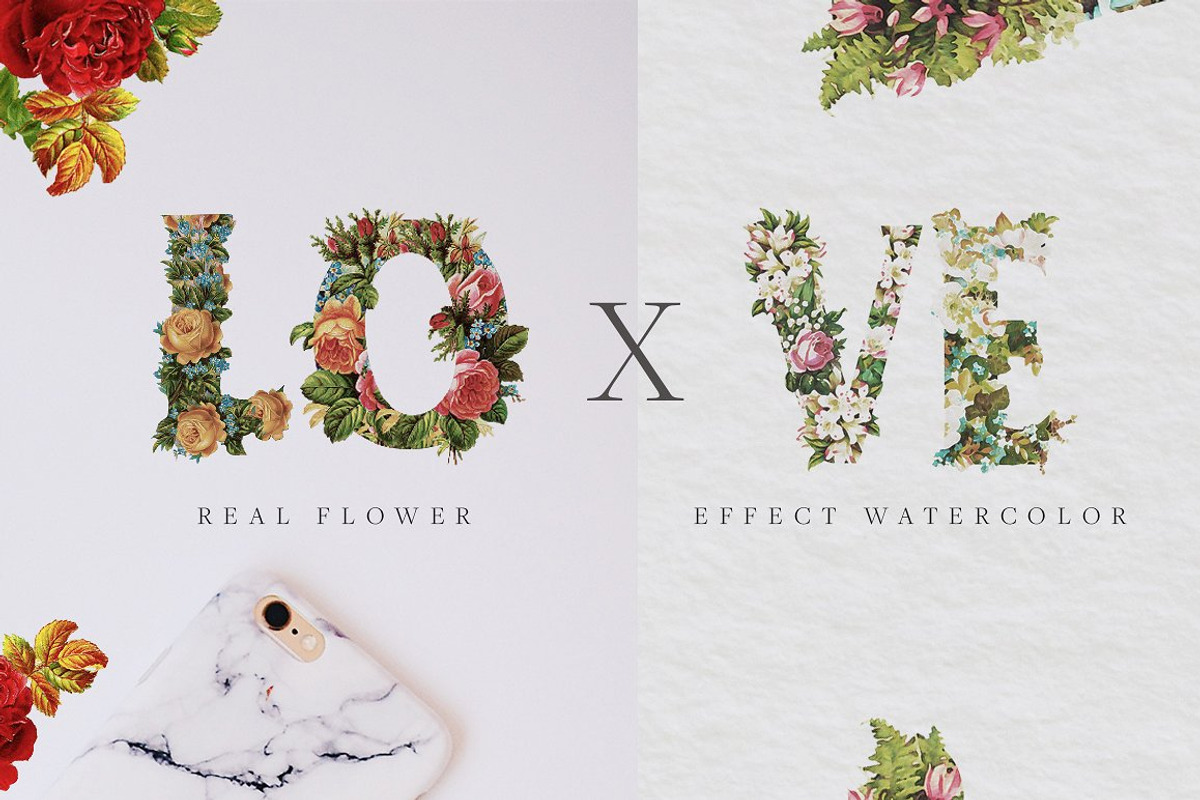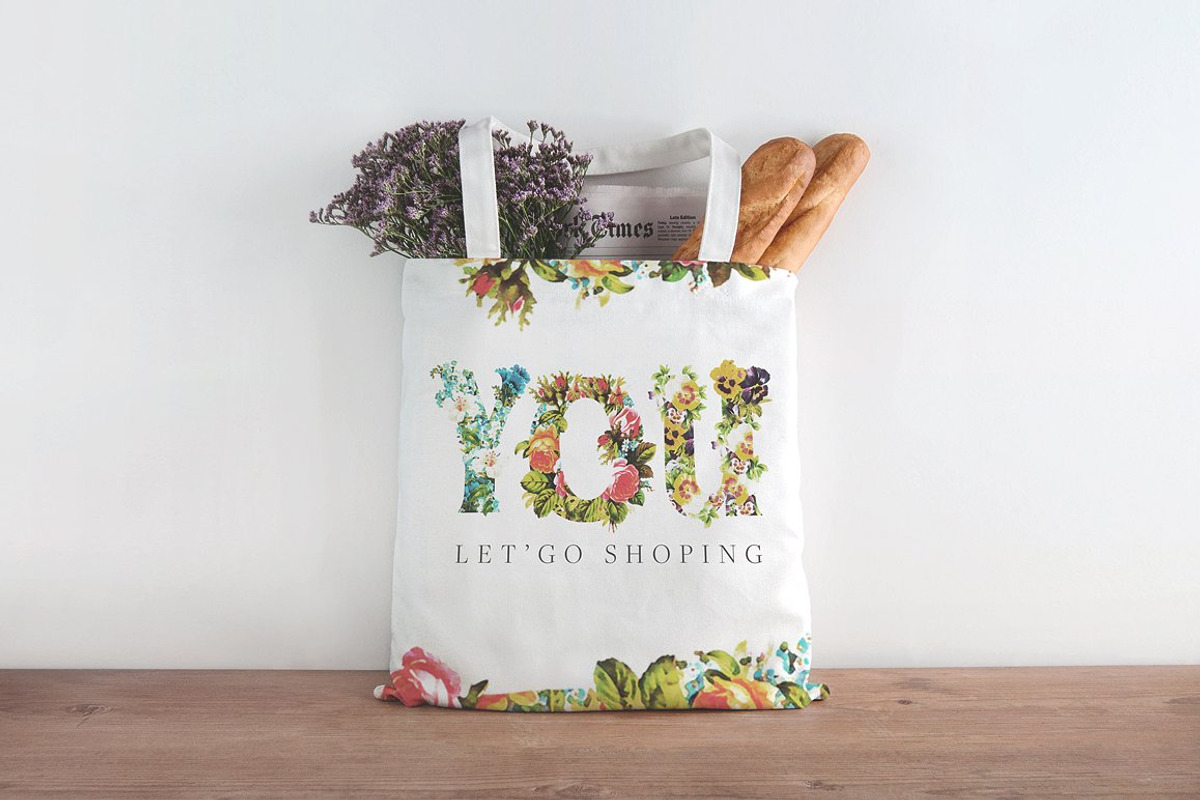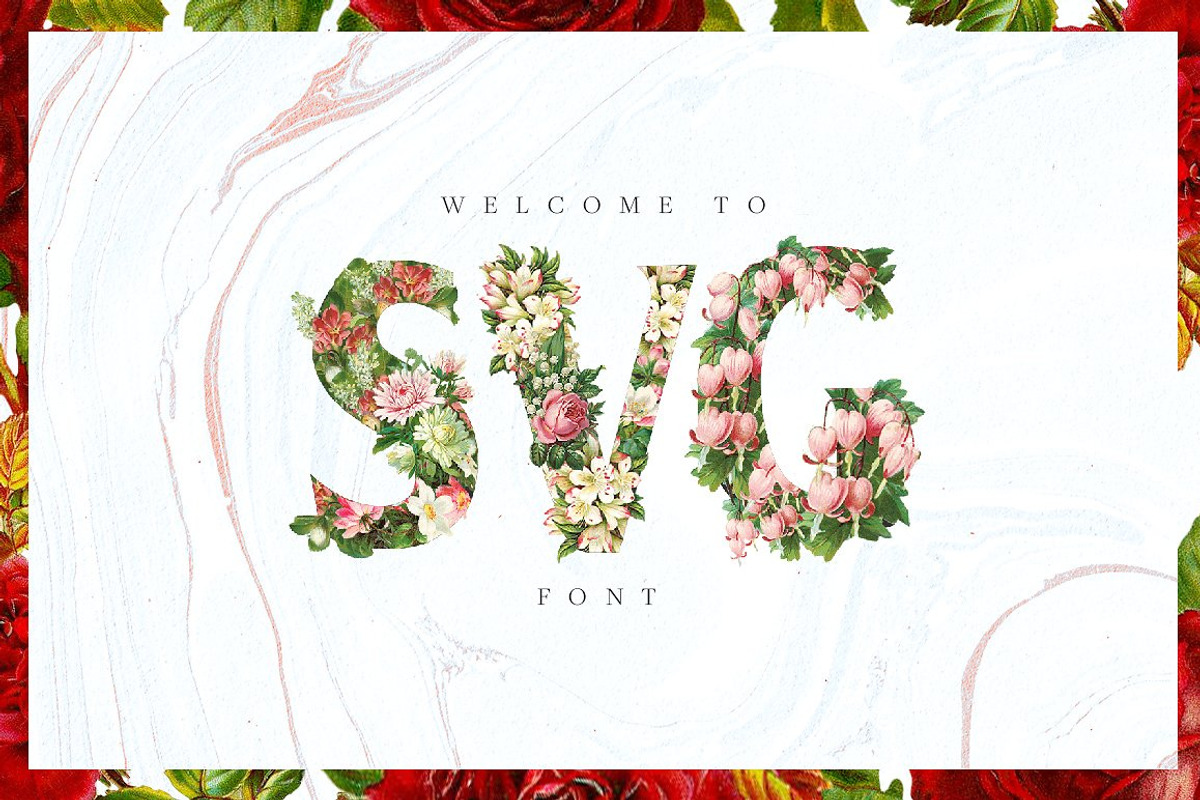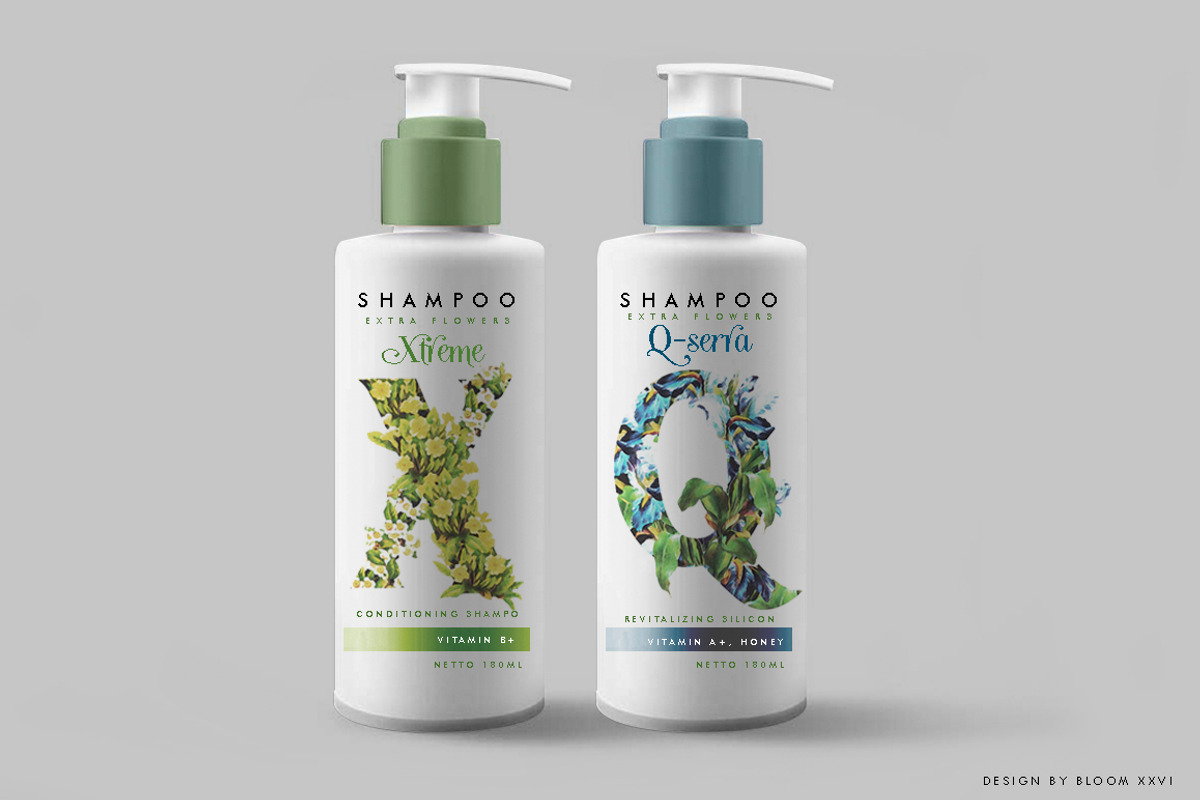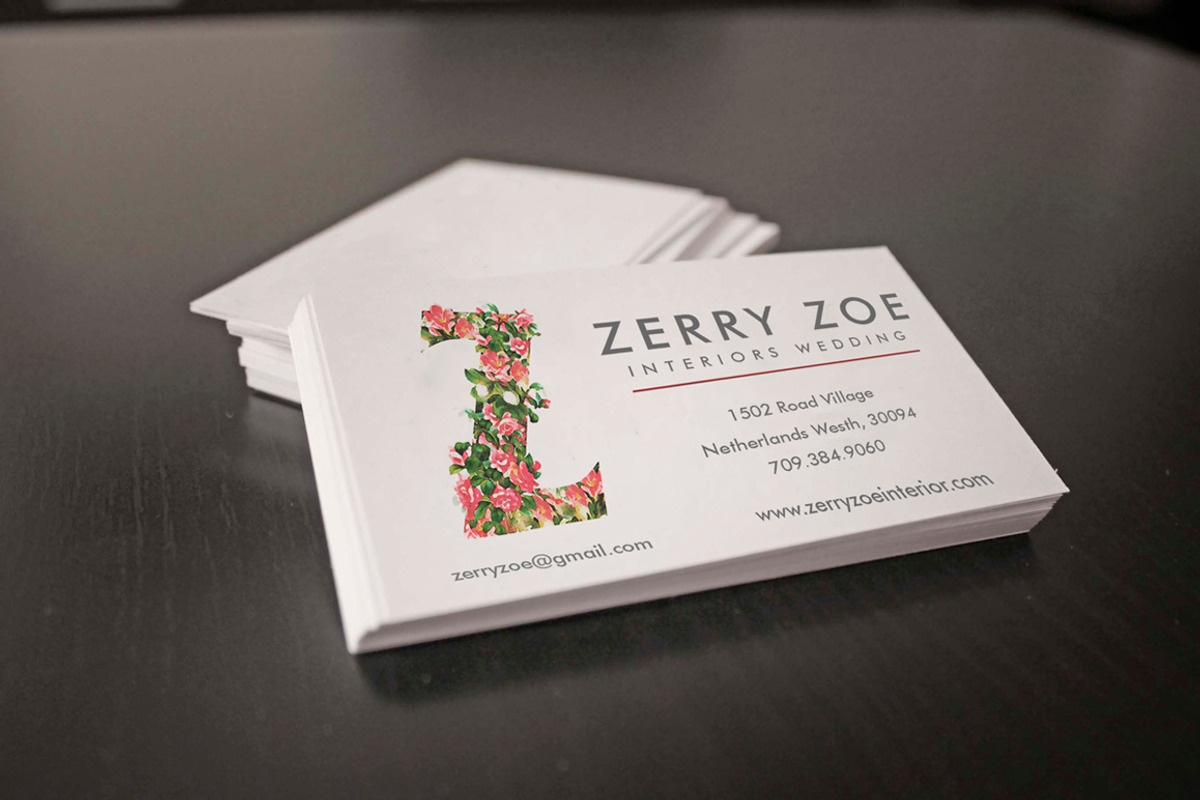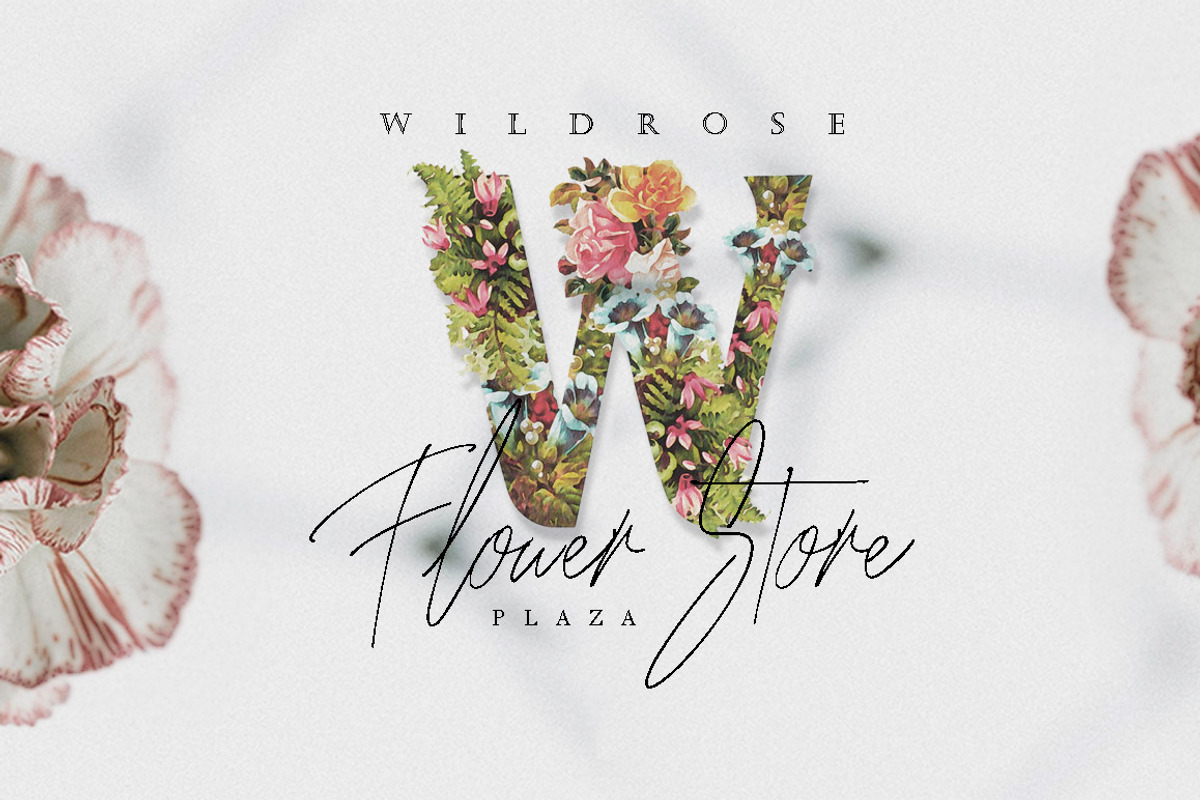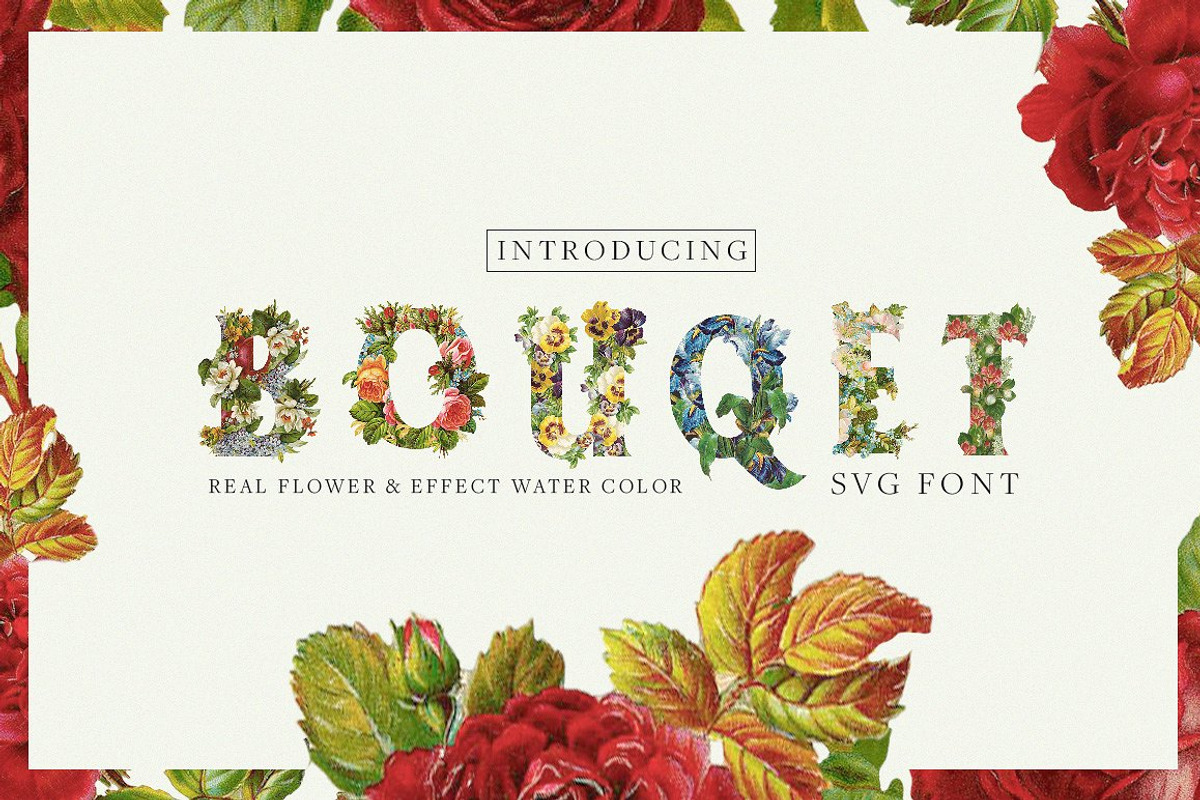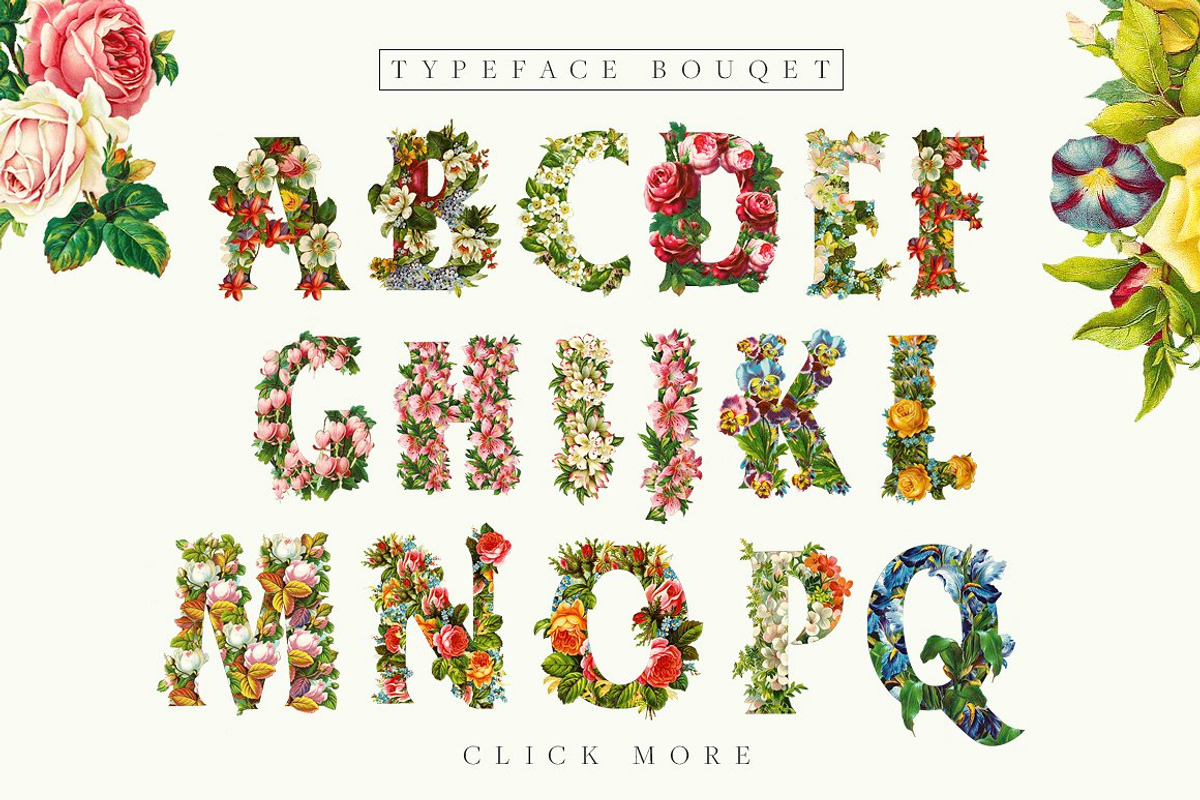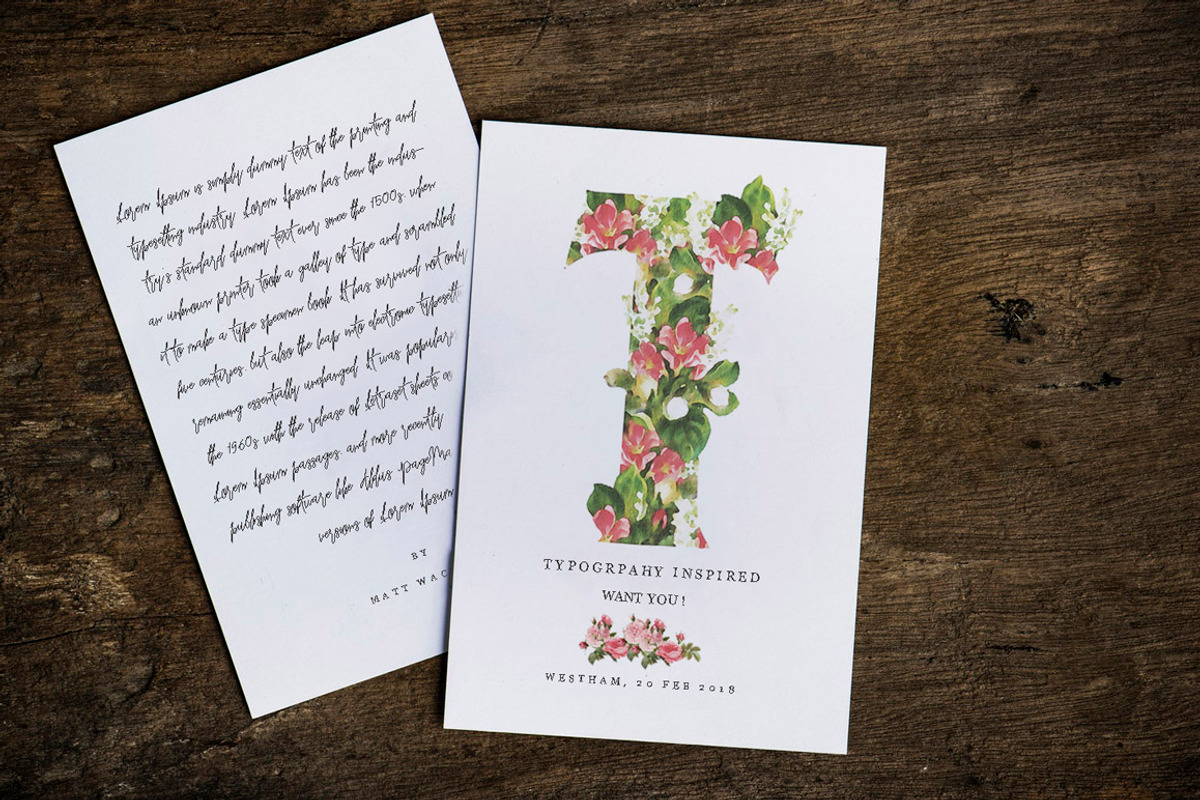
BOUQET - SVG Font Flower Watercolor
Bouquet Flower & water Color font SVG created with two versions. wich is Real flower version and flower color water effect. Bouqet Flower & water Color typeface can be used in all versions of photoshop for photoshop cc 2017 and lattest version can using .otf and layered psd file. for photoshop cc 2016 and old version you can only use layered PSD. Both versions work well and make it easier for you to create very interesting works . There are many uses for these beautiful flowers, such as very pretty wall art, elegant branding,websites, digital media, weddings, apparel, packaging, invites, merchandise designs and much more. There´s a lot of possibilities! Thanks for checking it out, and feel free to drop me a message if you had any queries :)